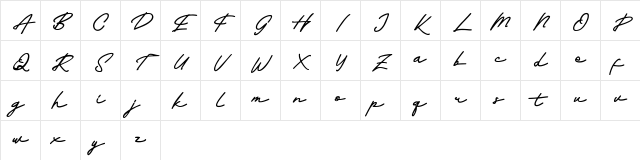
Complete Baladewa FREE Regular glyph index. Displaying only characters natively supported by Baladewa FREE Regular font.
Baladewa FREE is a composed and adaptable typeface that performs quietly and consistently across a wide range of design contexts.
Pro Tip: Use Baladewa FREE in both headline and body roles to test its range before committing to a single application.